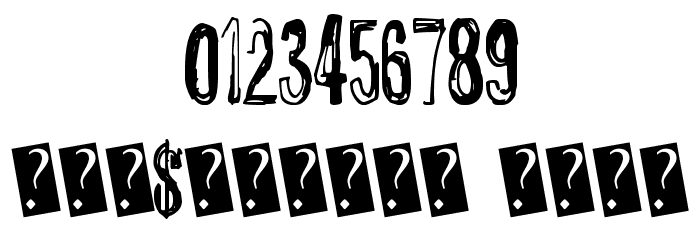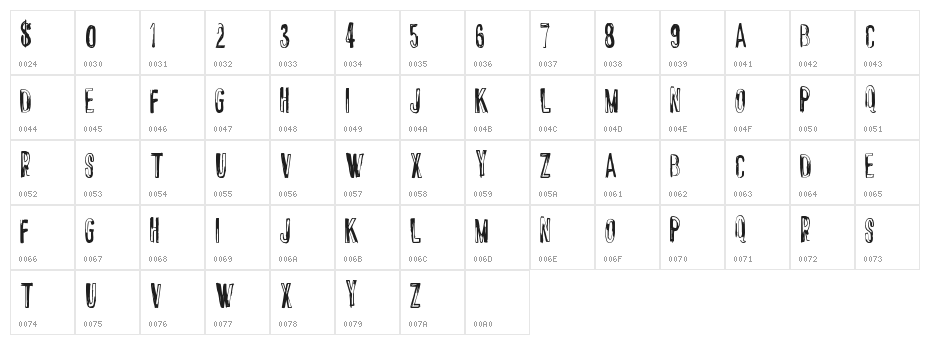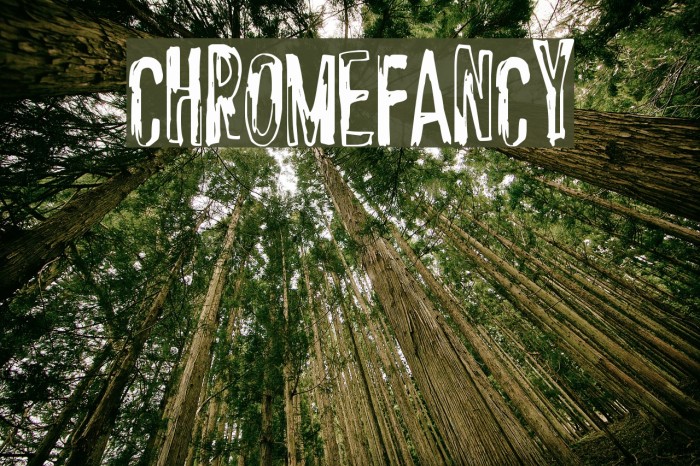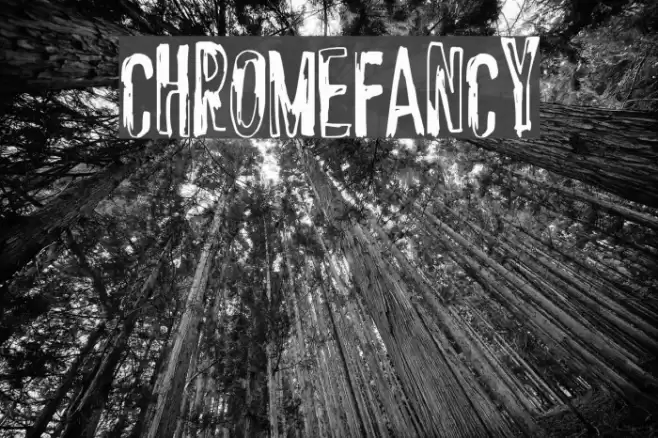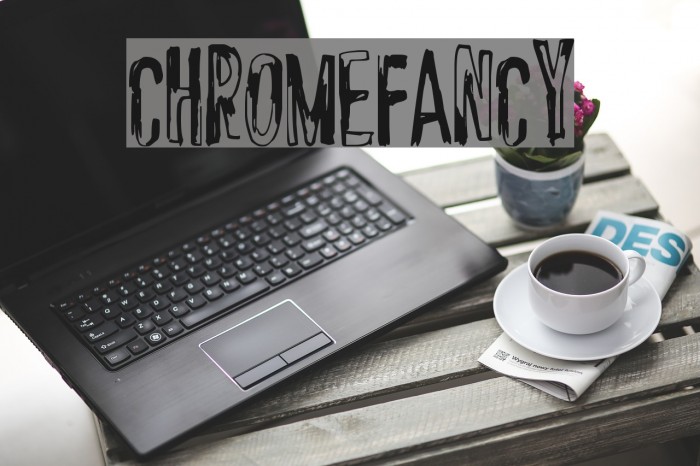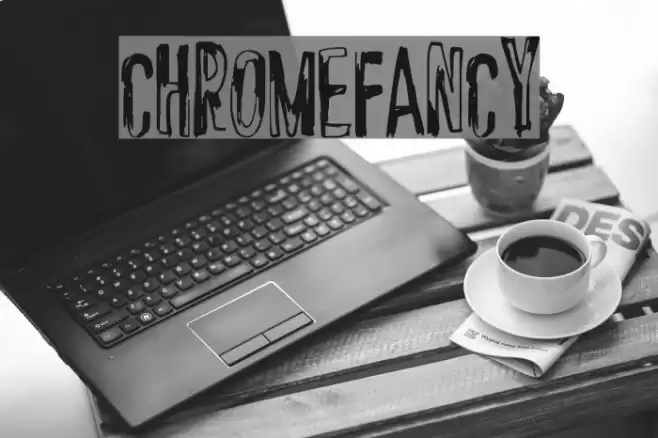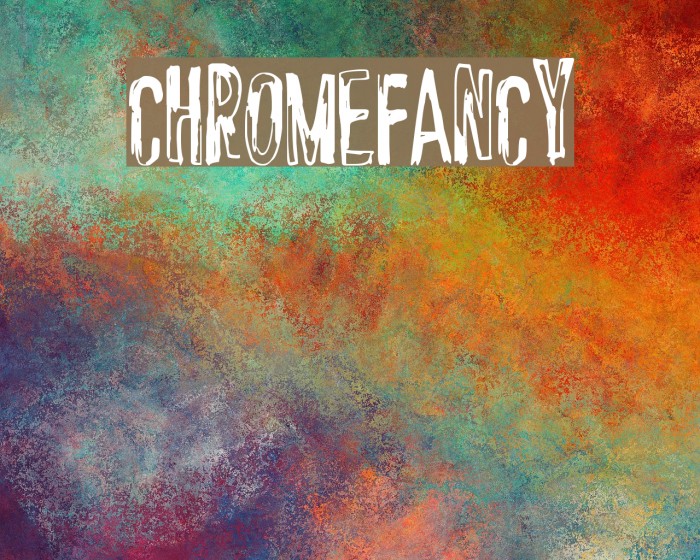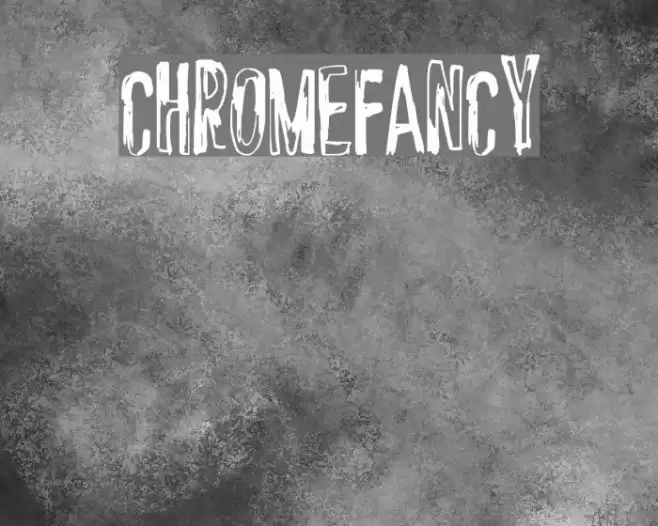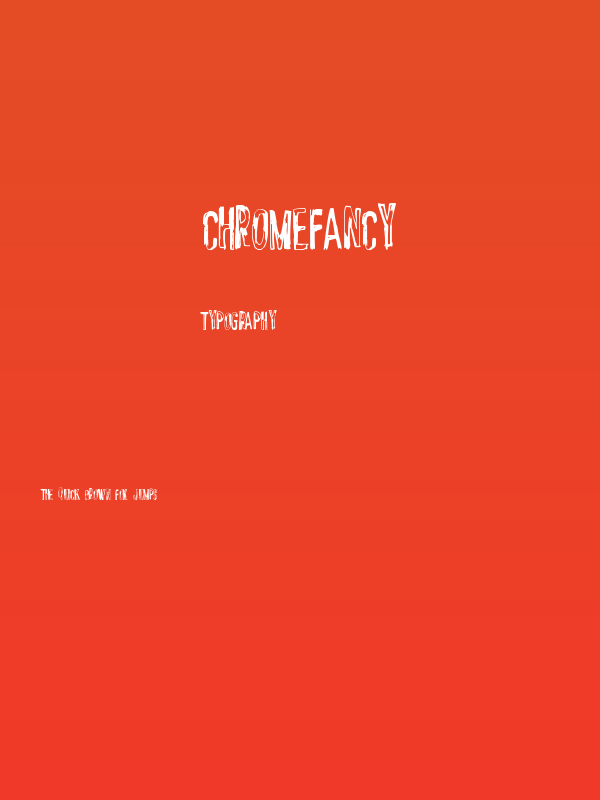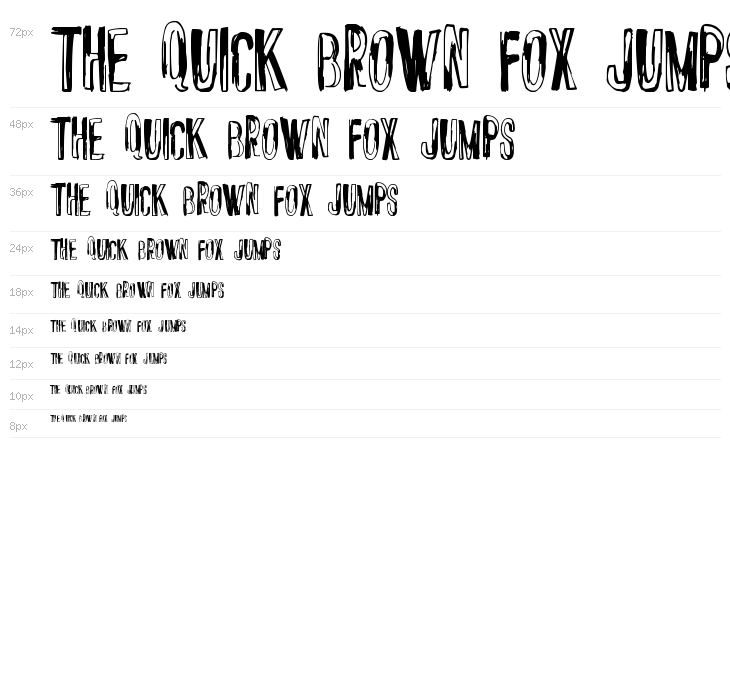
ChromeFancy Font
ChromeFancy Description
This font features a bold and dynamic style with a distressed, grunge-like appearance. The characters are uppercase and lowercase letters, numbers, and a selection of special characters. Each letter has a unique, hand-drawn look with uneven edges and varying stroke thickness, creating a sense of movement and energy. The font's design is reminiscent of urban street art or graffiti, making it ideal for projects that require a bold, eye-catching aesthetic. The characters are slightly condensed, with tight spacing that enhances the overall impact of the text.
| Overall Style | Urban, Grunge, Hand-drawn |
| Proposed Projects | Ideal for posters, album covers, streetwear branding, and urban-themed designs. |